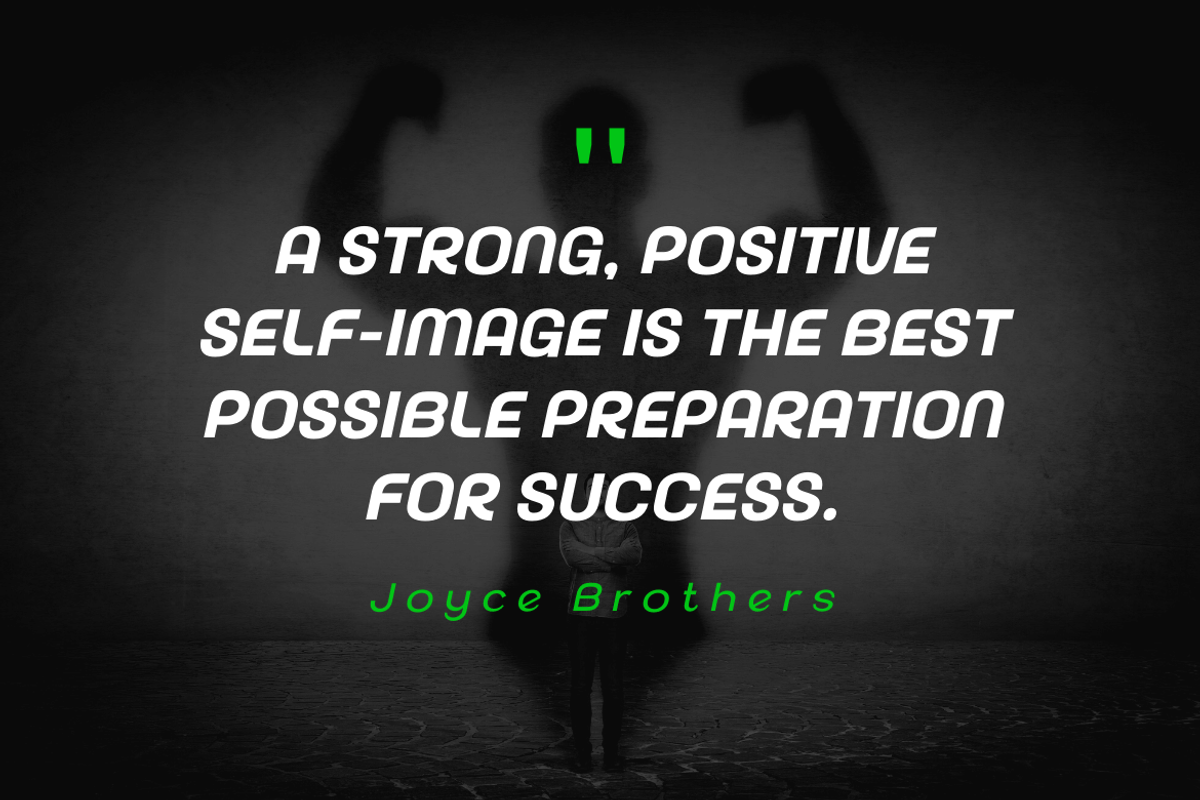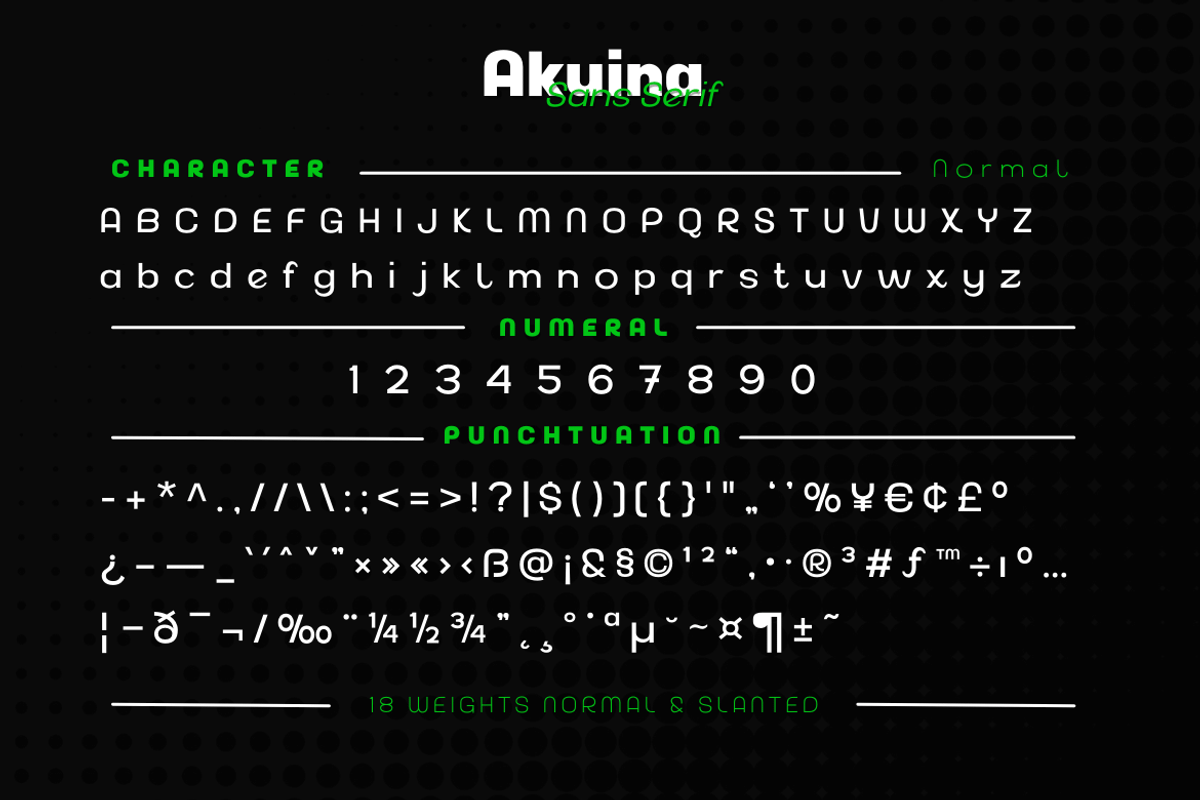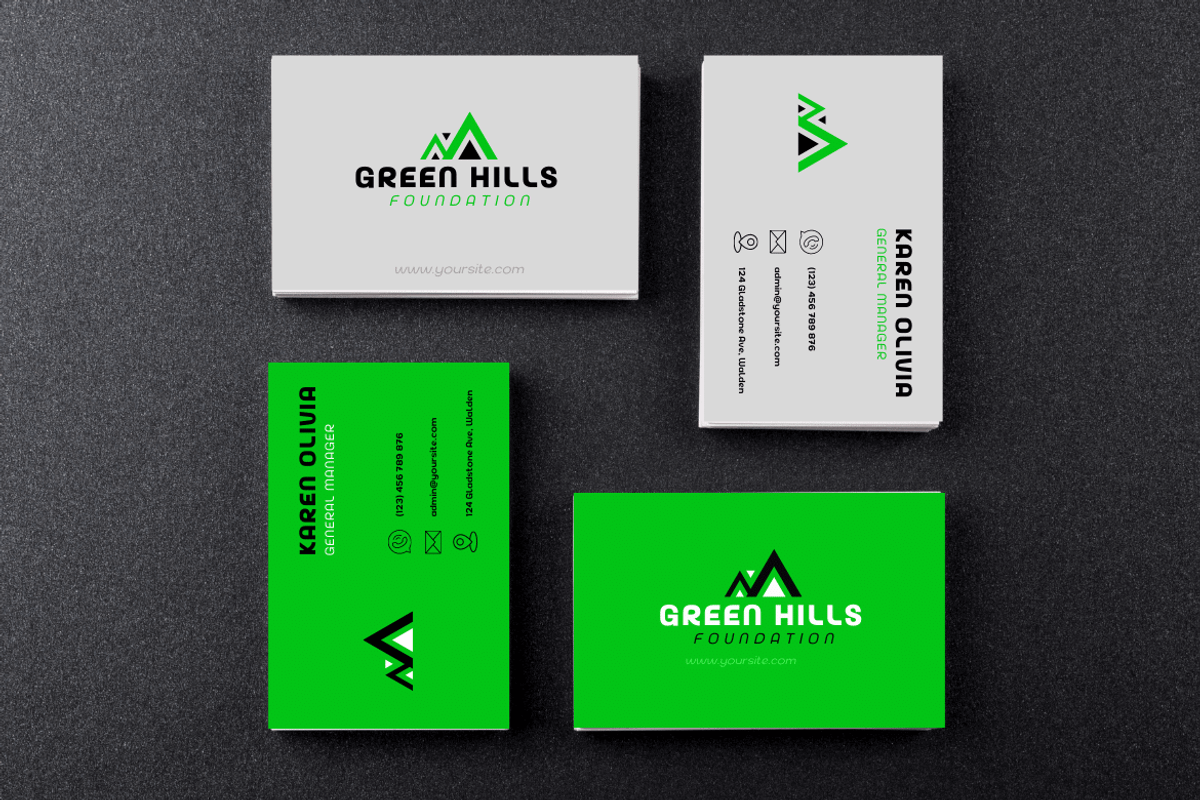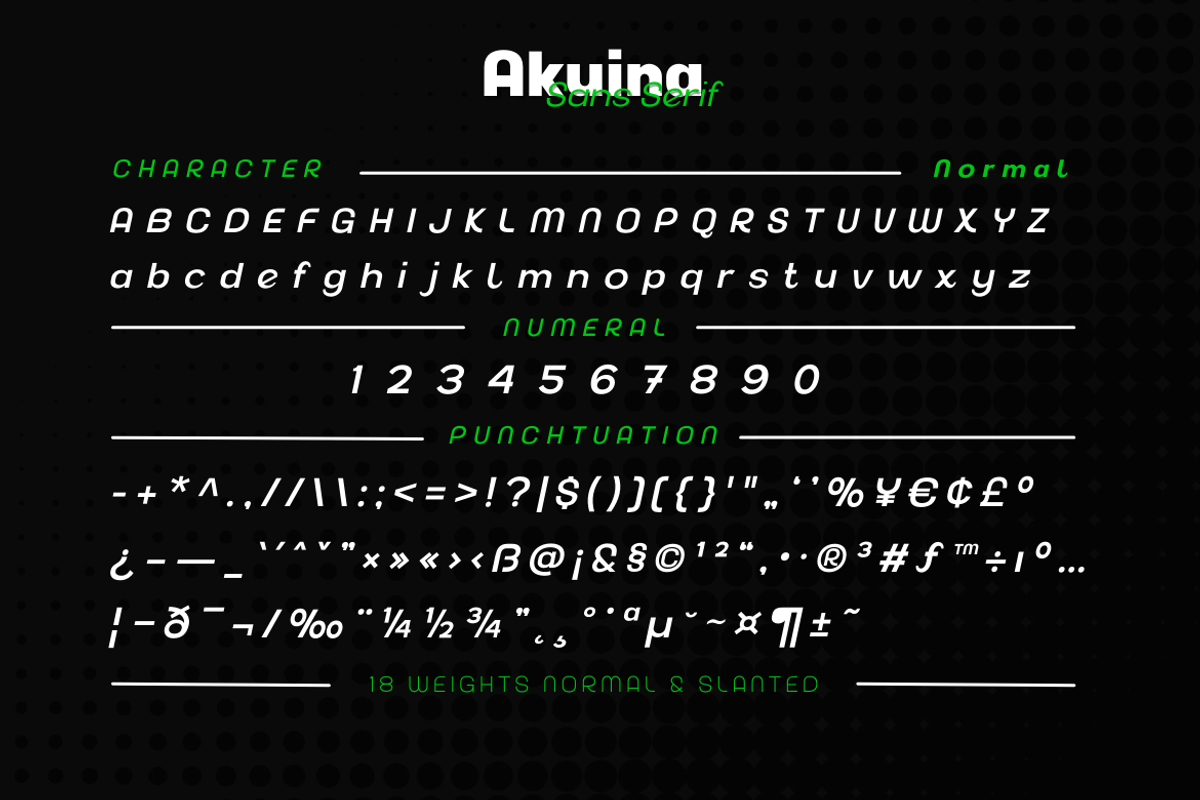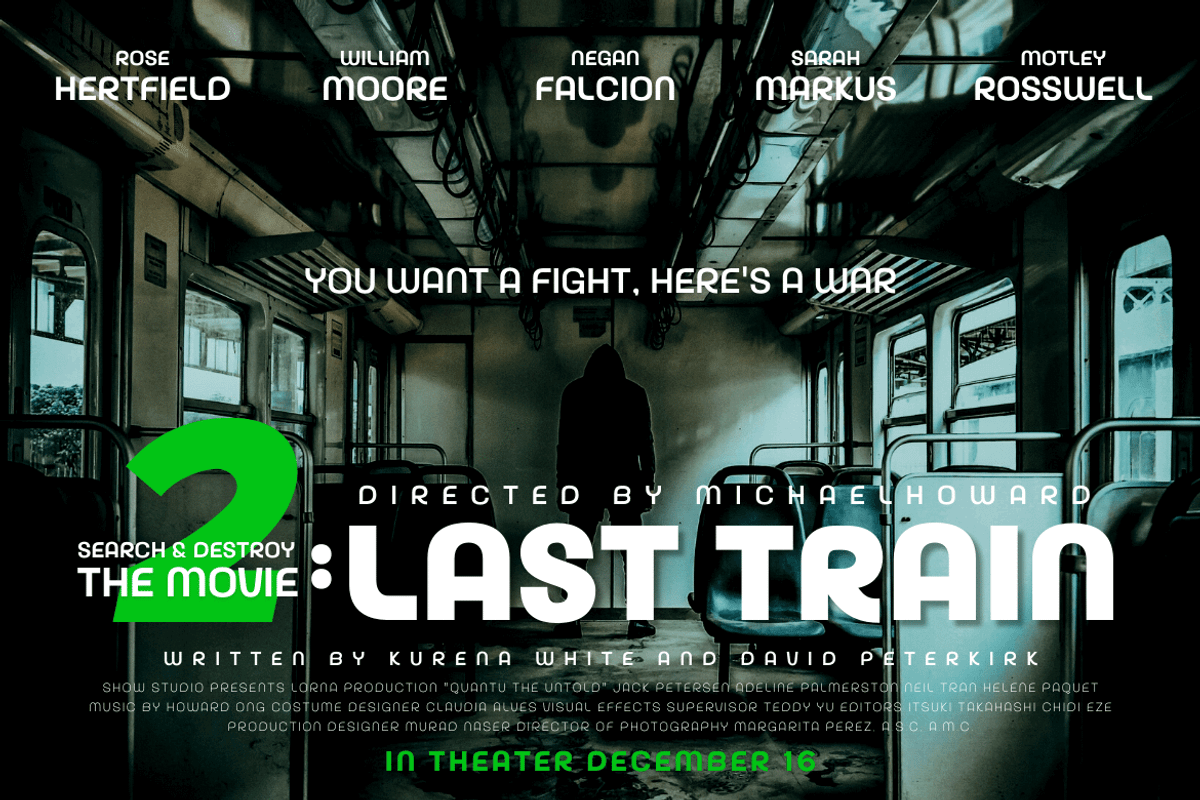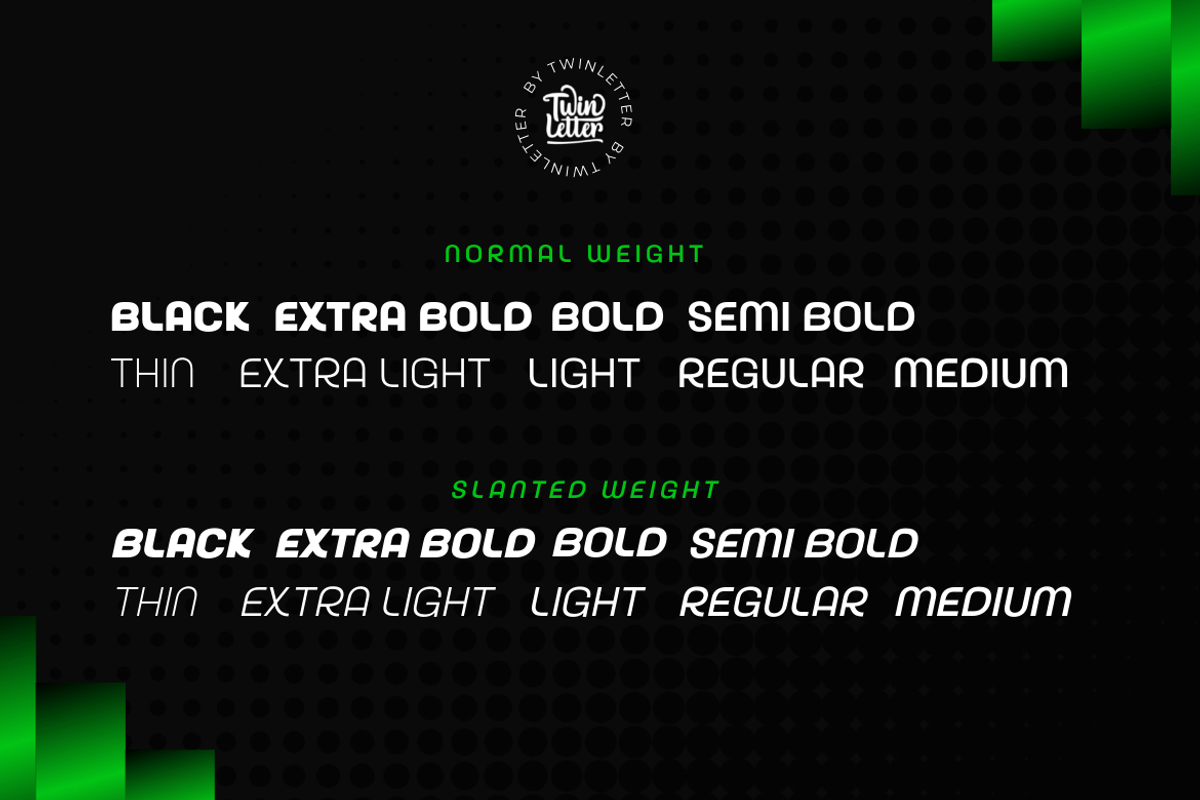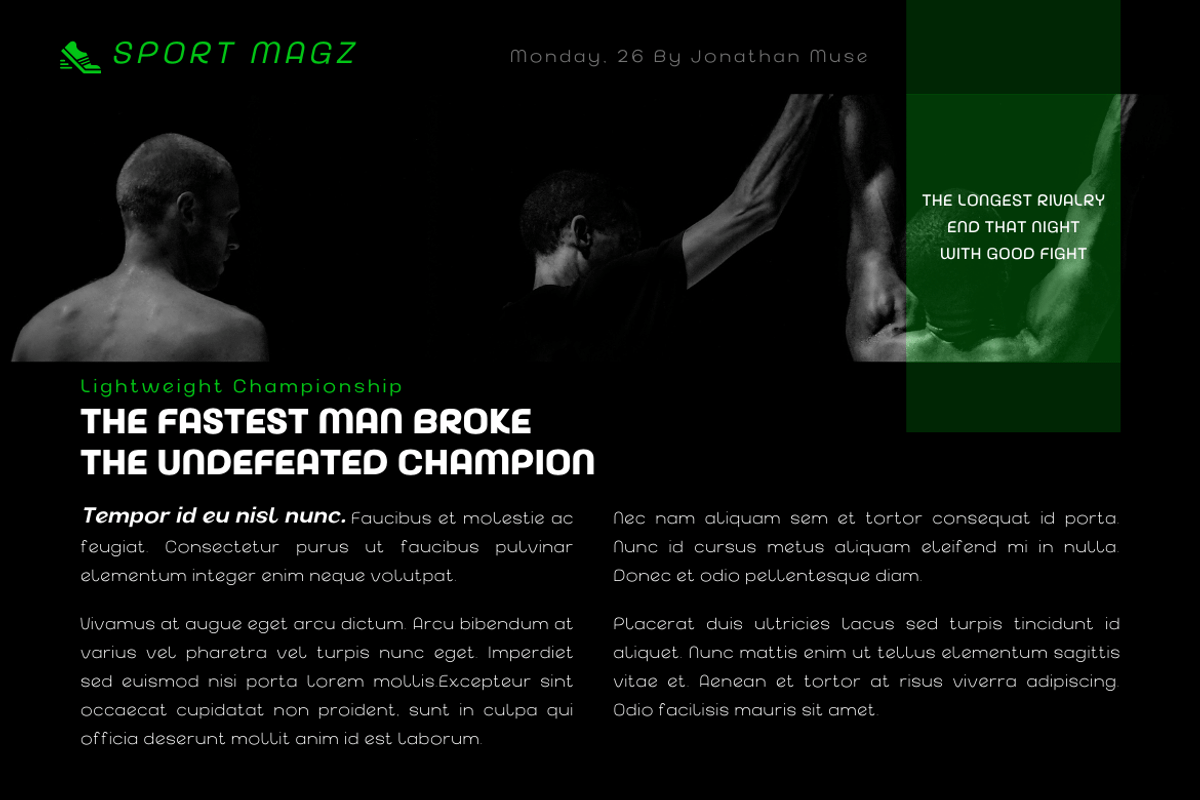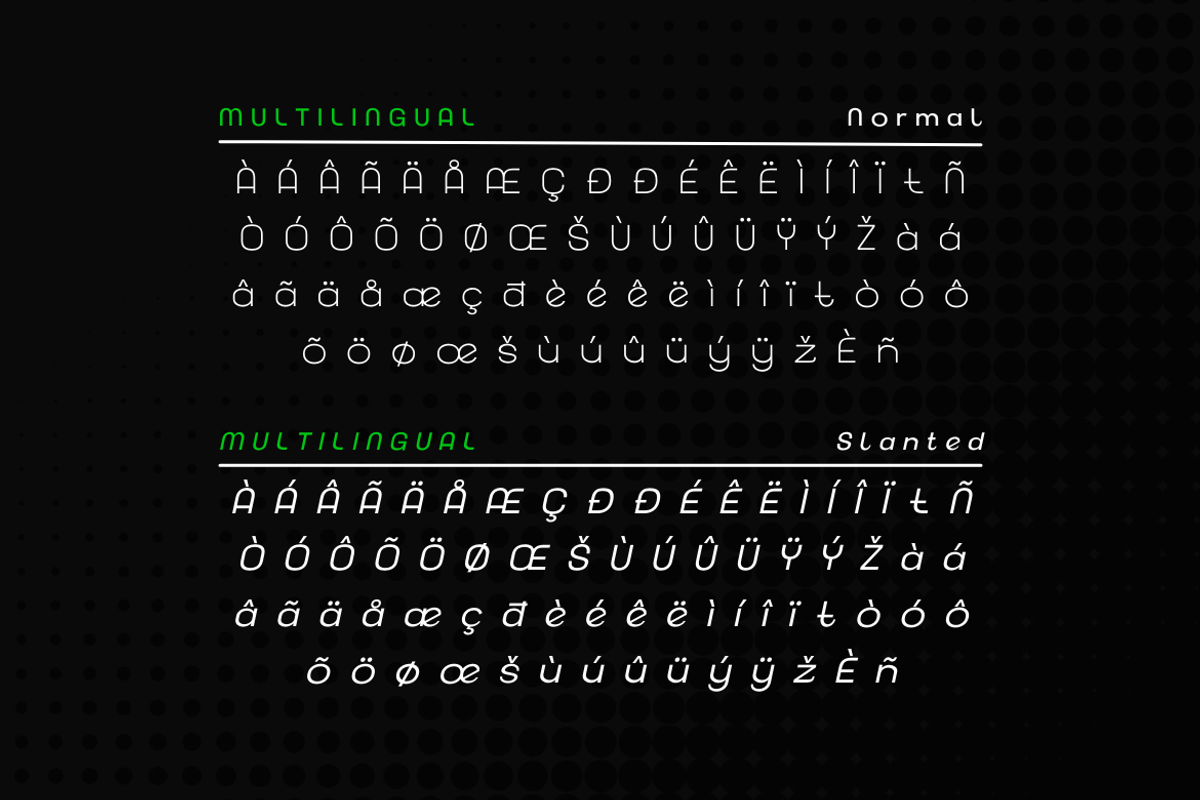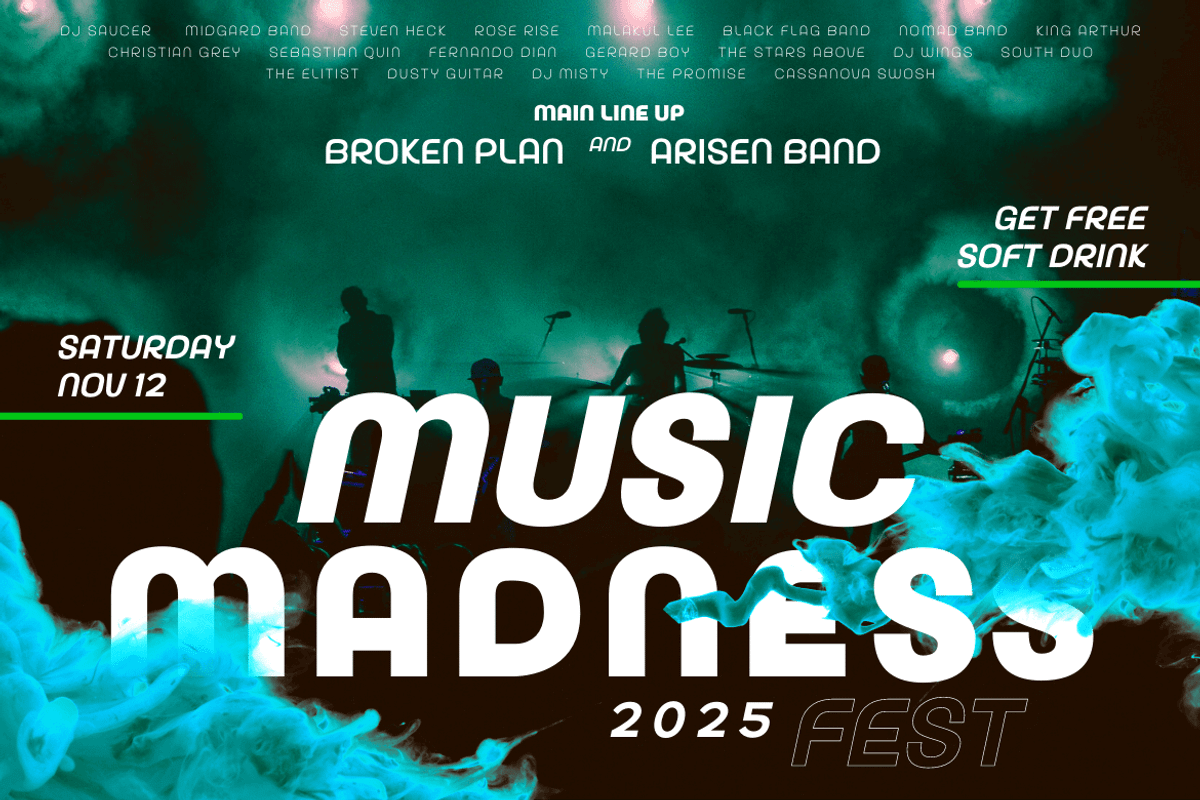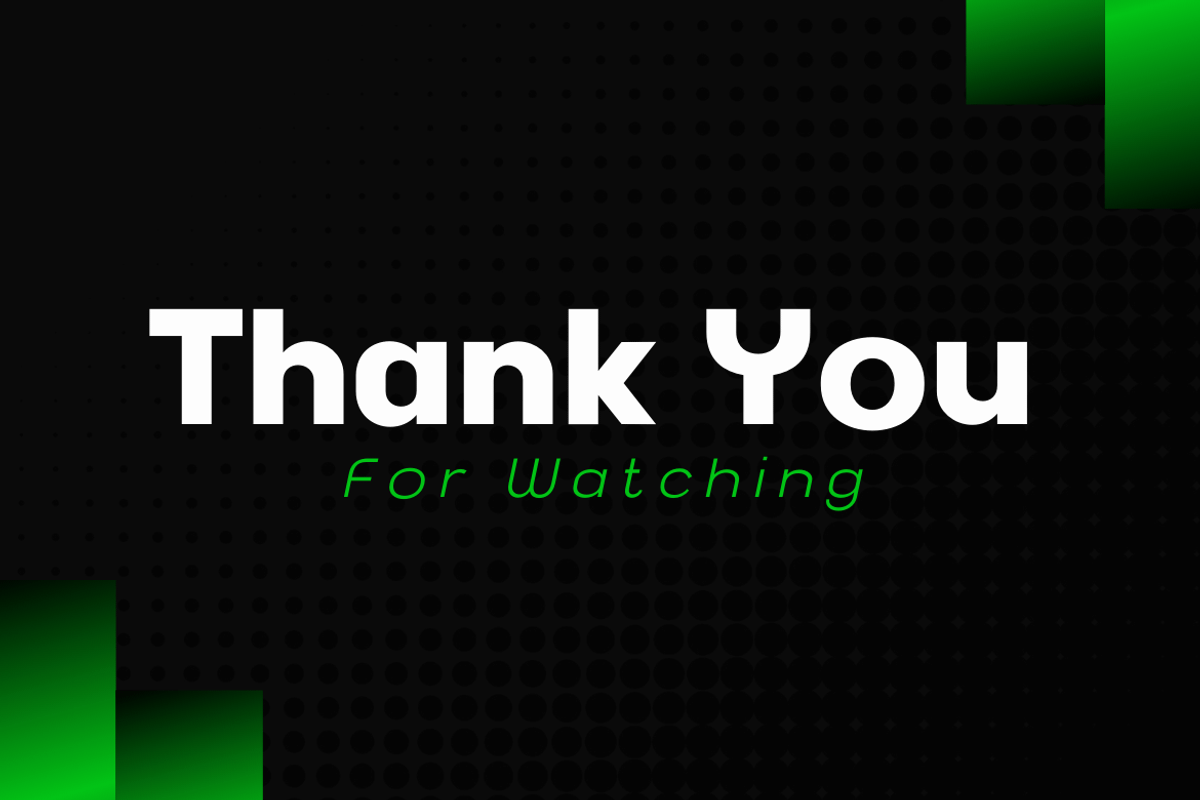
Akuina
Looking for a typeface that will add luxury and elegance to your next project? Akuina is here for you! With a bold sans style, this post-modern typeface is ready to give your graphic designs a new twist. Each font has its own unique style and can be used across multiple media channels including web, print, and more. You can’t go wrong adding this creative font to your library – it’s made with versatility in mind!
This unique font pack features 18 beautiful modern font styles that you can use in a variety of projects. Each character has been created to maximize beauty and character. so that your project performs optimally
of course, your various design projects will be perfect and extraordinary if you use this font because this font is equipped with a font family, both for titles and subtitles and sentence text, start using our fonts for your extraordinary projects.